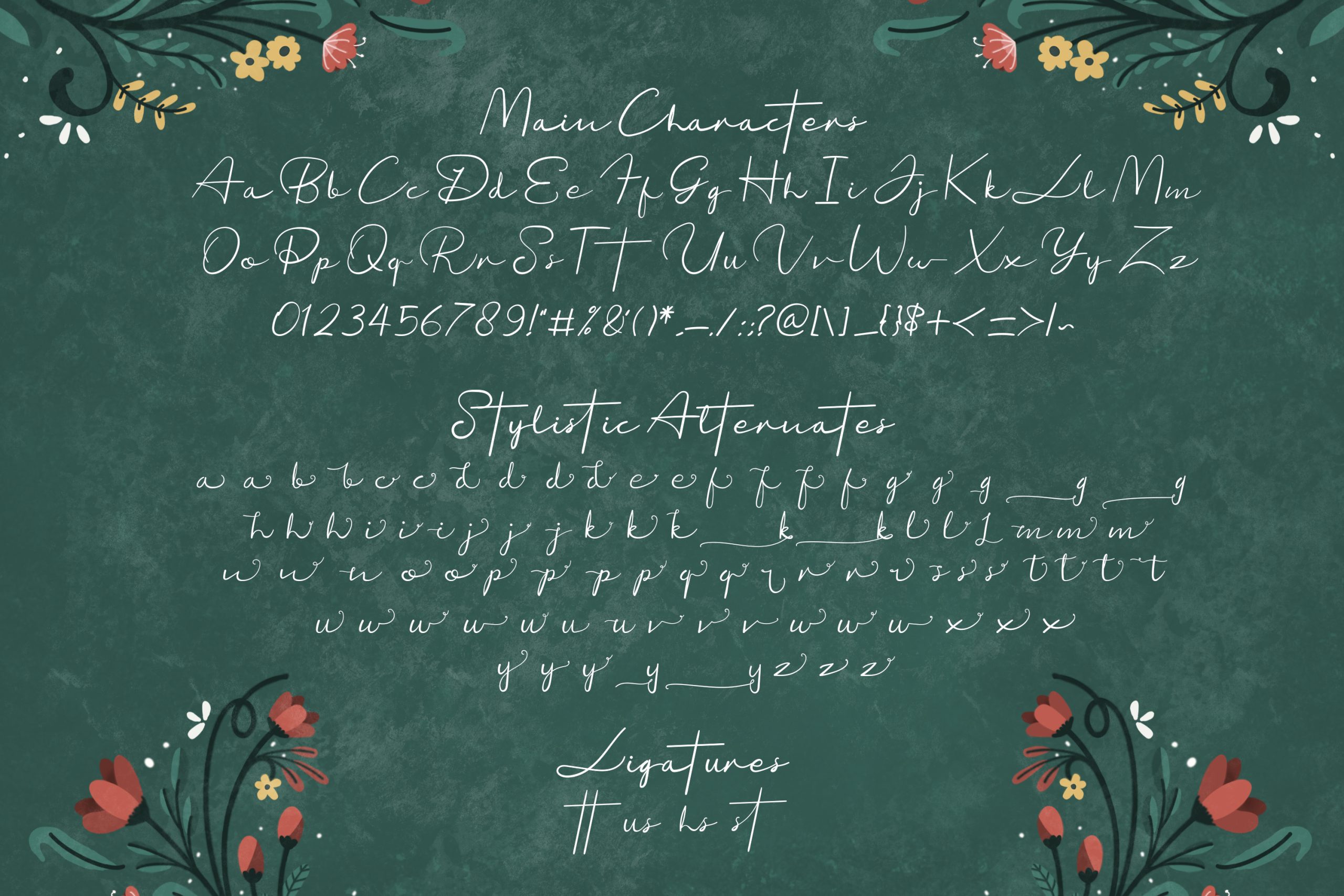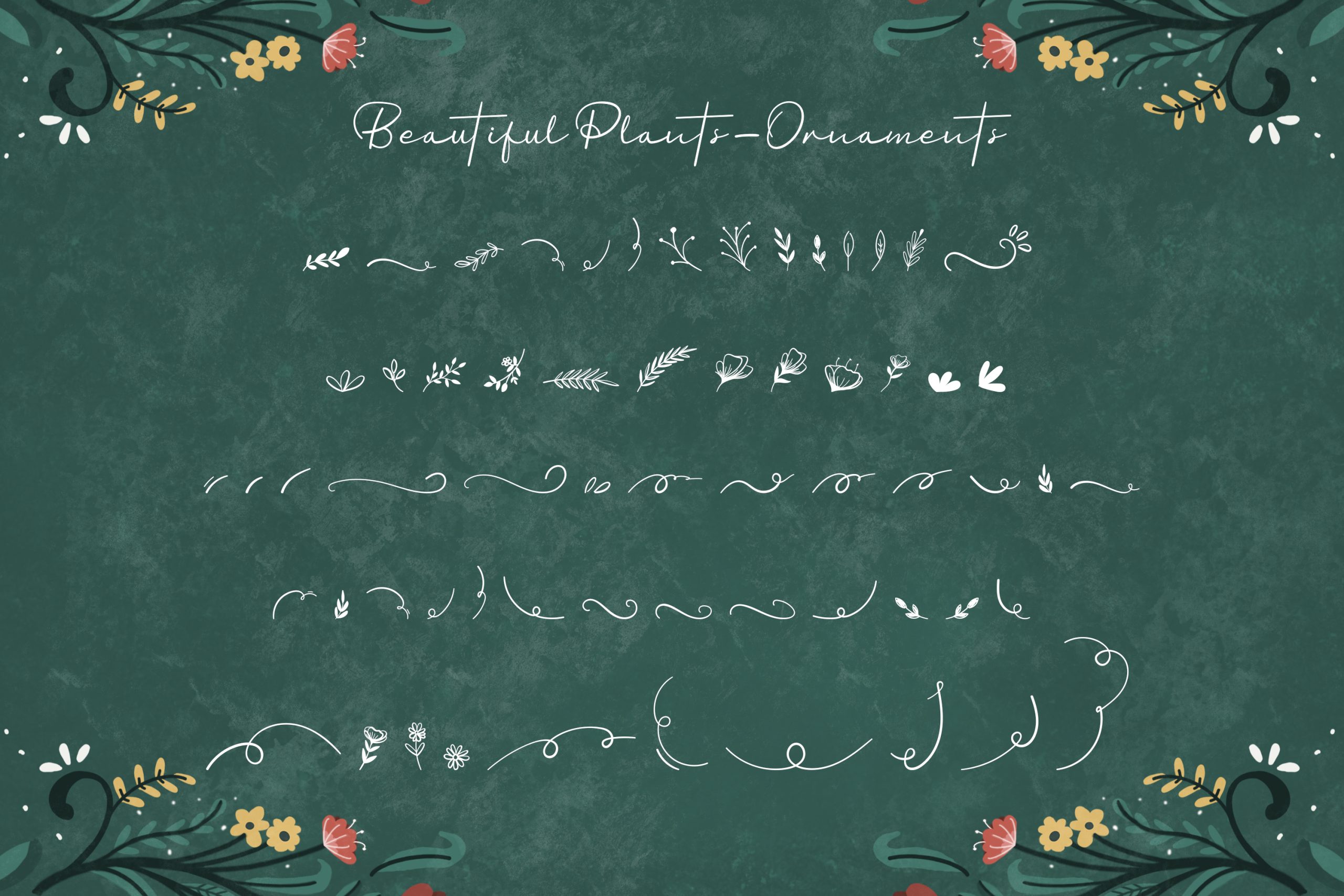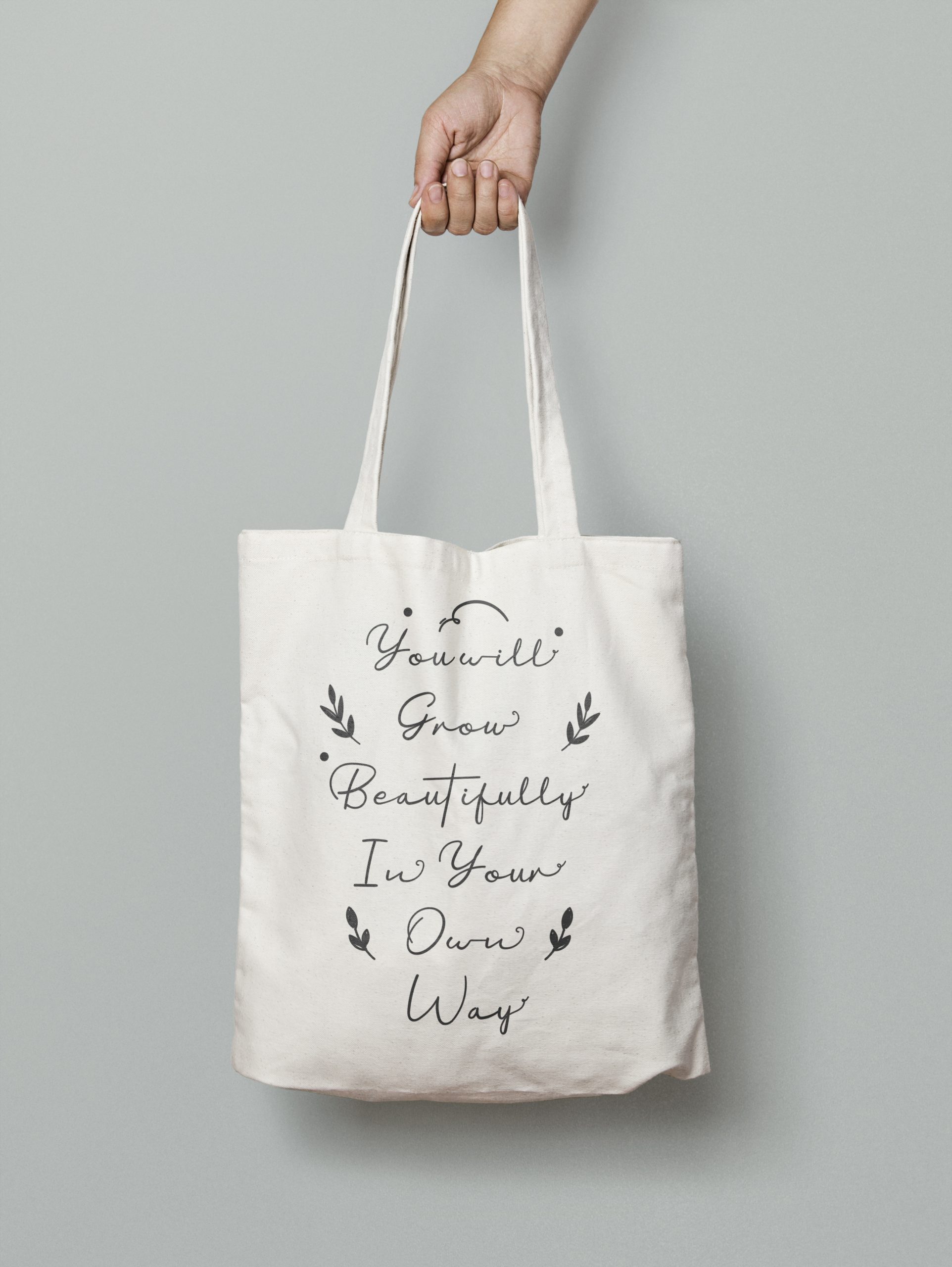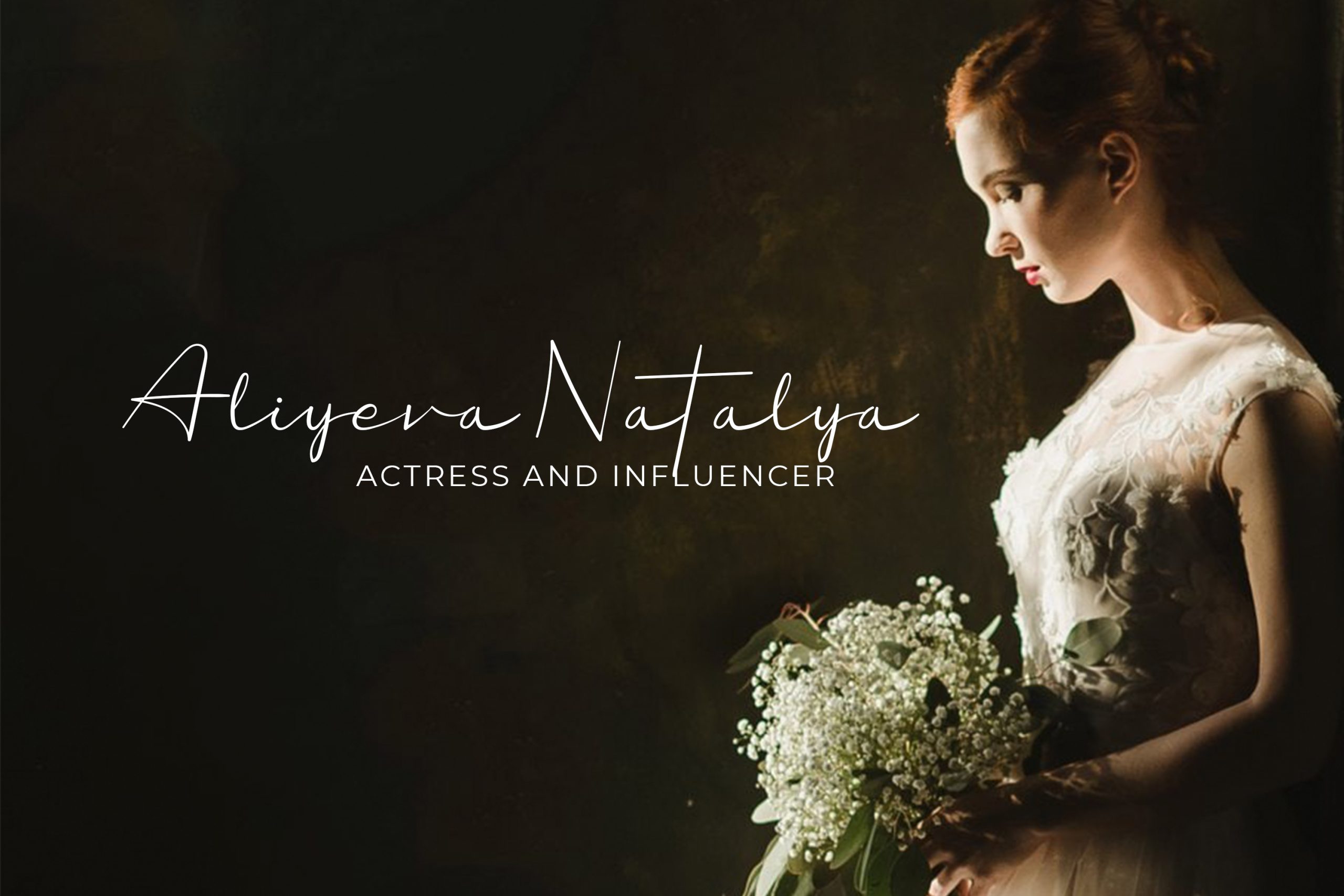
Beautiful Plants Font
Beautiful Plants Handwritten Font is a handwritten calligraphy font that can apply in many stationeries such as lettering, signature, quotes, and wedding. This lovely script also comes with floral dingbats to complement your writing. This font is PUA encoded, which means you can access all of the glyphs and swashes with ease!